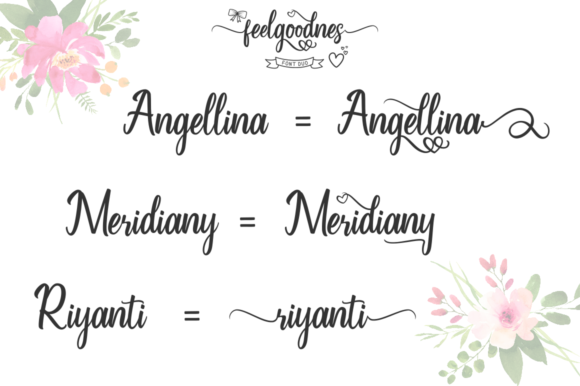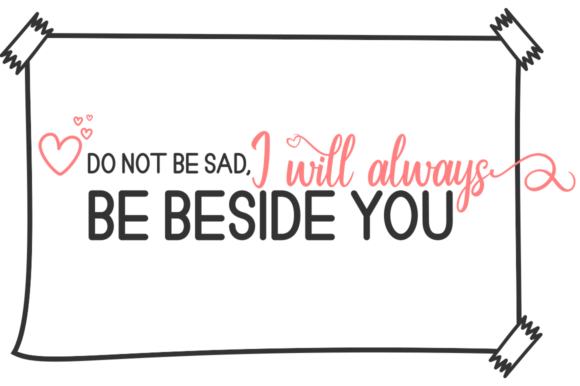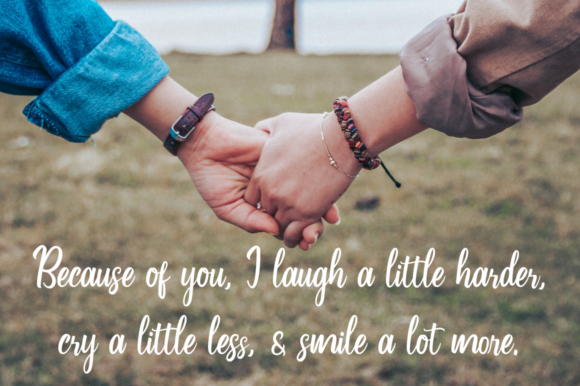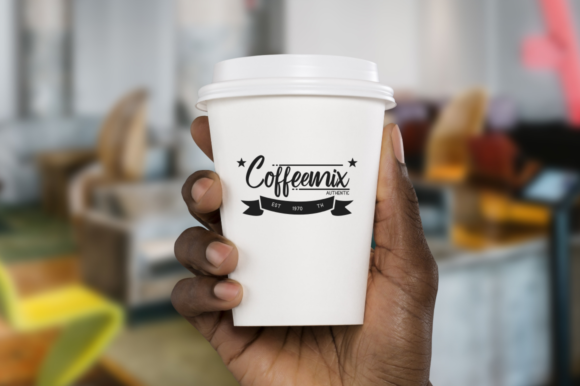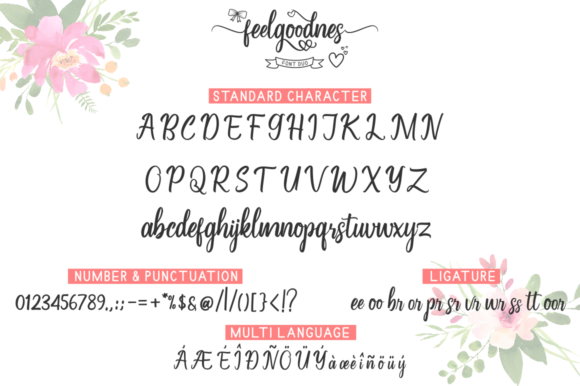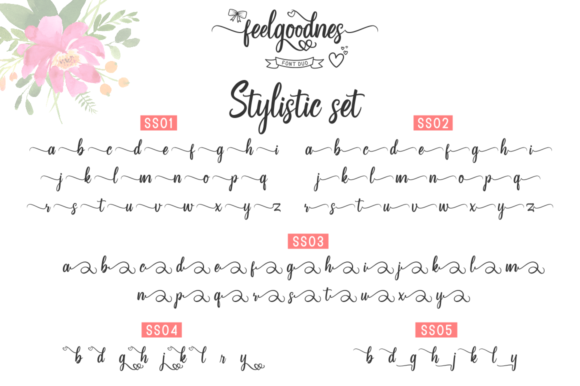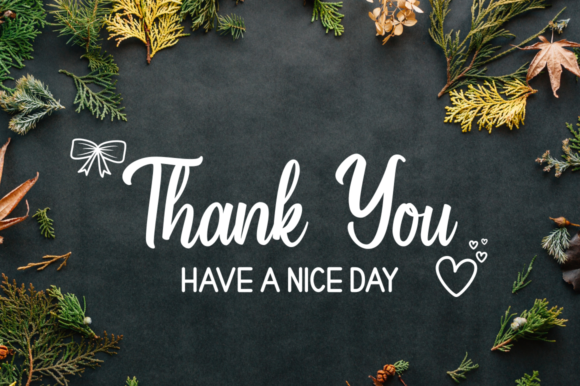
Feelgoodnes Font
About Feelgoodnes Font
Feelgoodnes is a modern font duo with a handwritten and sans font style. It’ s a beautiful and light script font with an amazing feel.